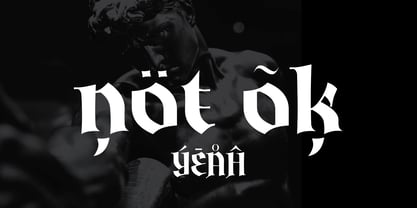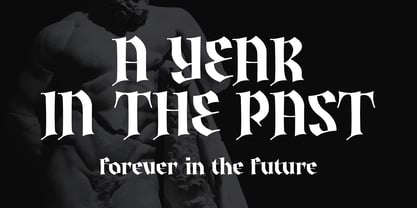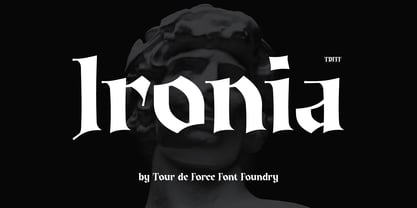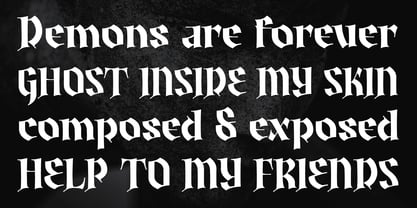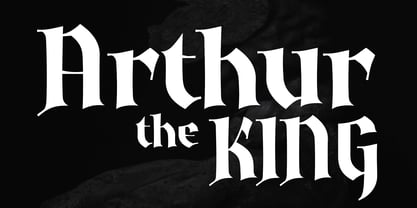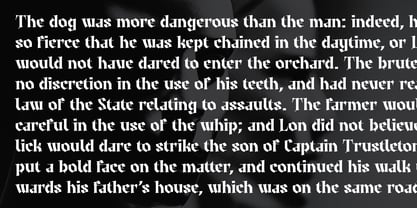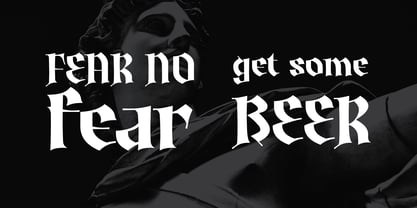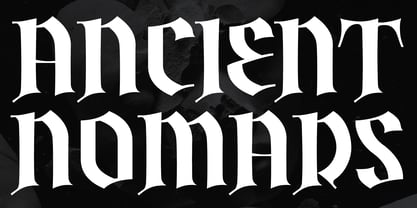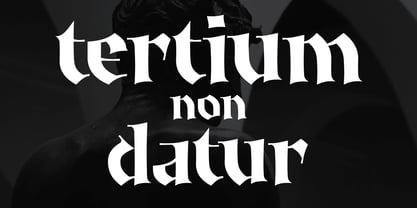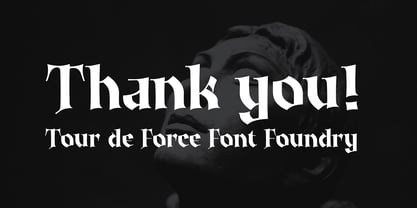
Ironia
by Tour De Force
The Ironia Font Family was designed by Dusan Jelesijevic and published by Tour De Force. Ironia contains 1 styles. More about this family
Ironia is modern blackletter typeface available in Regular style.
There is not much to tell about this typeface – there were no direct inspiration during its creation. It gives words an archaic visual impression, the most closer to Middle age.